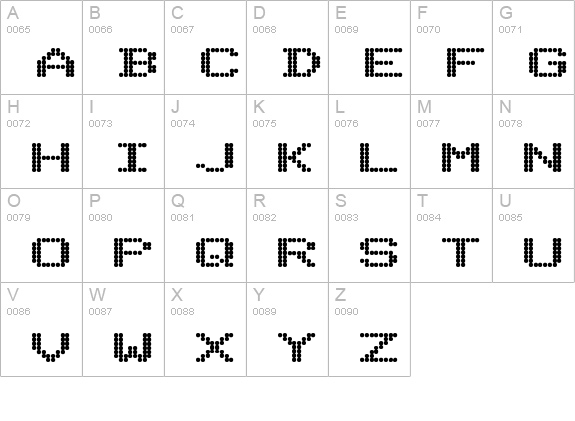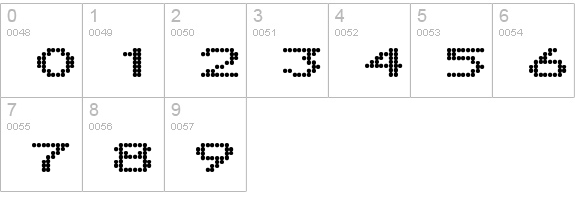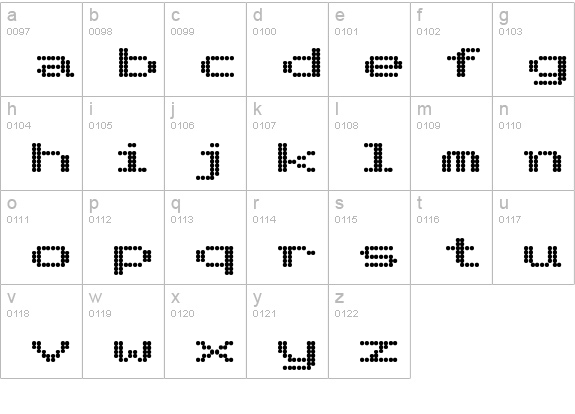
Telidon ExHv Font Details
Telidon ExHv is a sleek and modern font that exudes sophistication and professionalism. With its clean lines and elegant design, this typeface is perfect for a wide range of projects, from branding to advertising to web design. The Telidon ExHv font is versatile and easy to read, making it ideal for both print and digital applications. What sets Telidon ExHv apart is its unique blend of classic and contemporary elements, giving it a timeless appeal that will never go out of style. Whether you're creating a logo, designing a website, or crafting a marketing campaign, Telidon ExHv will elevate your work to the next level. And the best part? Telidon ExHv is absolutely free to download at FontsMarket.com. This means you can access this high-quality font without any cost, making it a valuable addition to your font collection. Don't miss out on the opportunity to enhance your projects with Telidon ExHv – download it today and see the difference it can make!